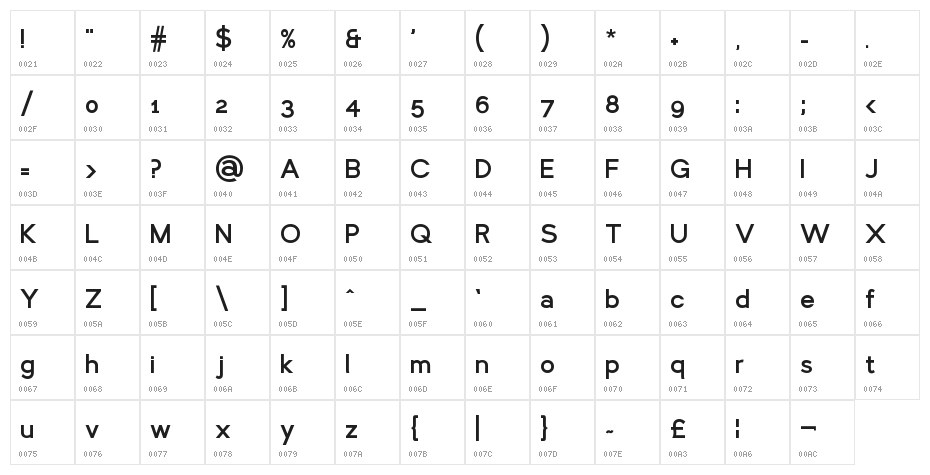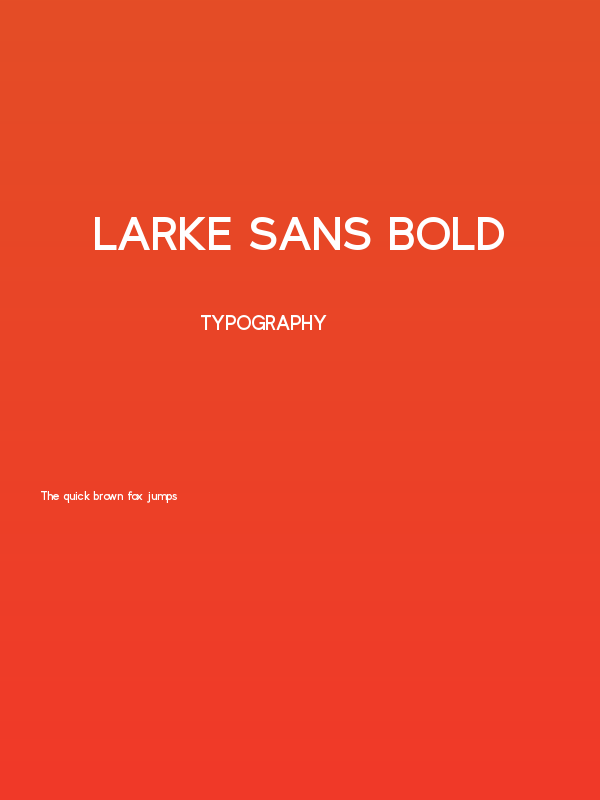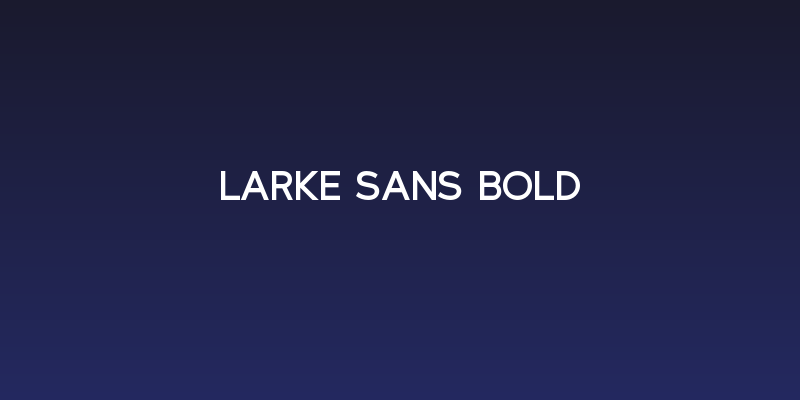
Larke Sans Bold Font
Larke Sans Bold Description
This typeface is a bold, sans-serif font characterized by its clean and modern appearance. The letters are uniform in weight, providing a balanced and cohesive look. The uppercase and lowercase letters are well-proportioned, with a consistent stroke width that enhances readability. The numerals are clear and distinct, matching the overall style of the alphabet. Special characters are included, maintaining the same bold and straightforward design. This font is versatile, suitable for a variety of design projects that require a strong and contemporary aesthetic.